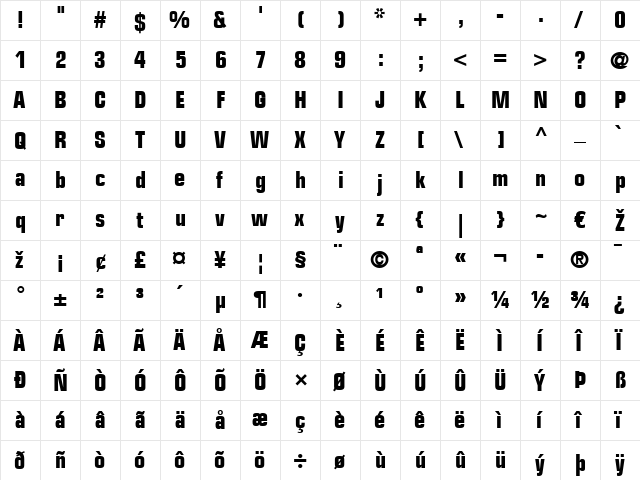
Eurostile LT Condensed Bold
Design Context for Eurostile LT Condensed Typeface
Eurostile LT Condensed takes a measured approach to typography — its balanced proportions and neutral character make it a reliable workhorse for both digital and print work. Its bold stroke weight gives it real presence on the page. Its narrow stance lets it pack a punch even in space-constrained designs.